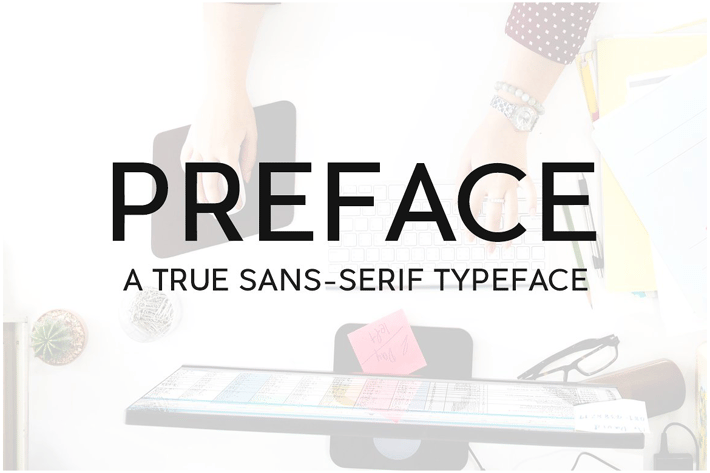
PREFACE Sans-Serif Typeface + WebFonts
PREFACE is a fresh Sans-Serif typeface designed with simplicity in mind. Be it for web or print media, this font will give more focus on your content presentation in a beautiful way.
Font produced by Unique Foundry, distributed by Designova.